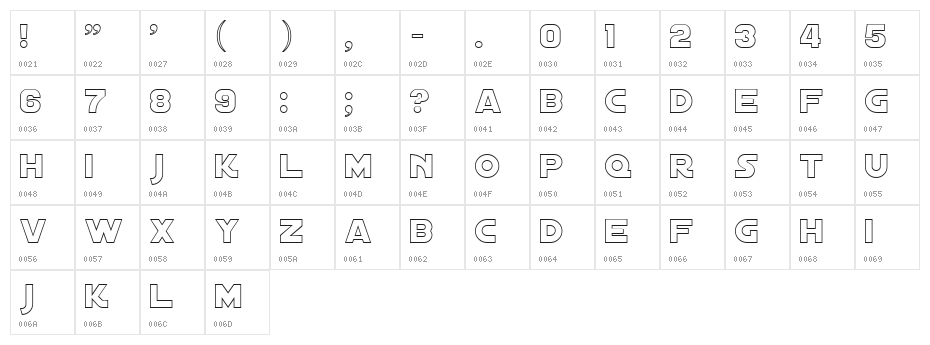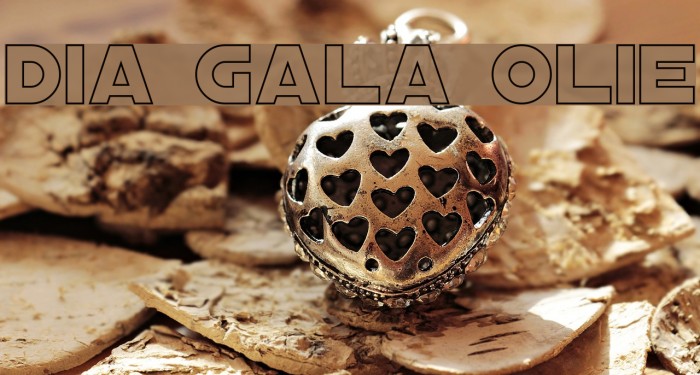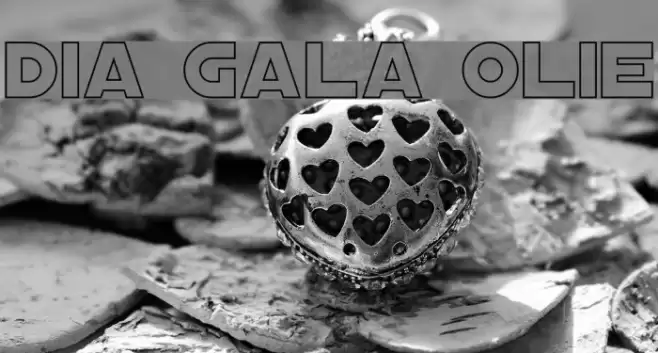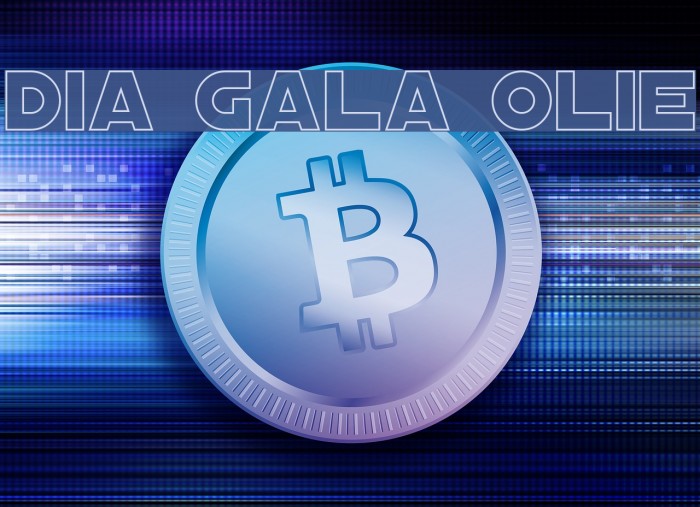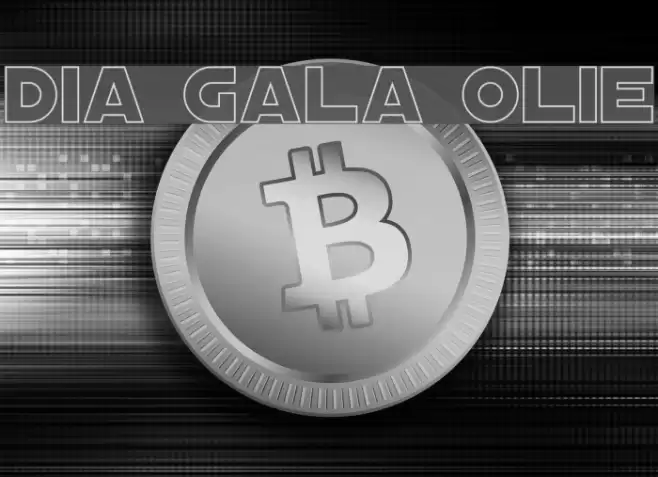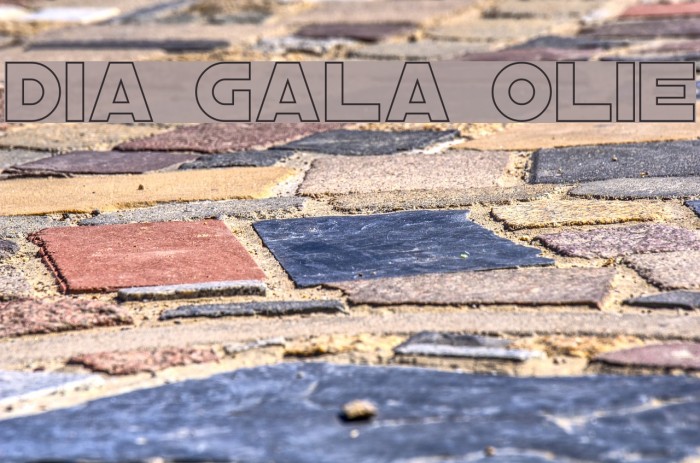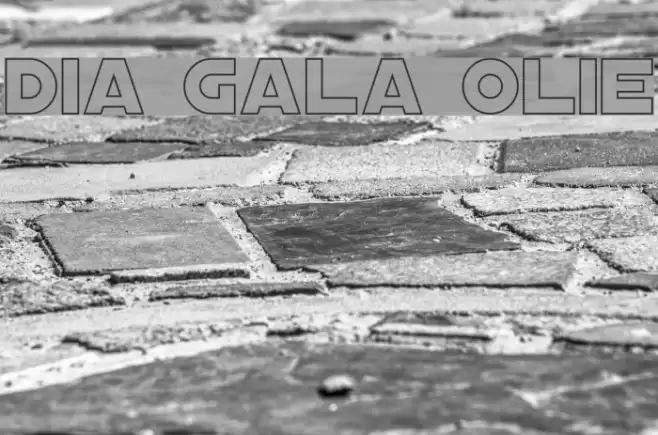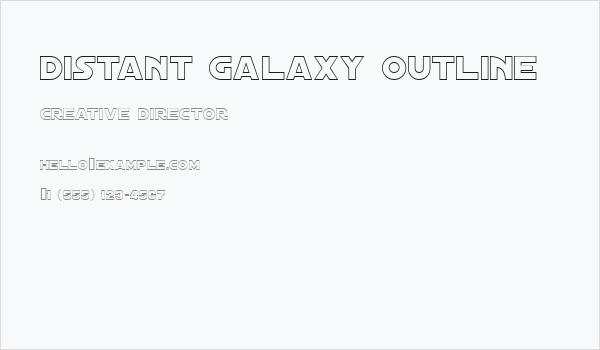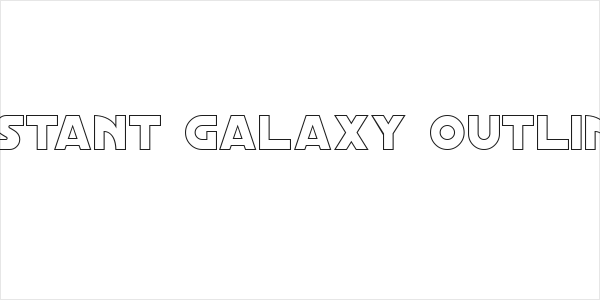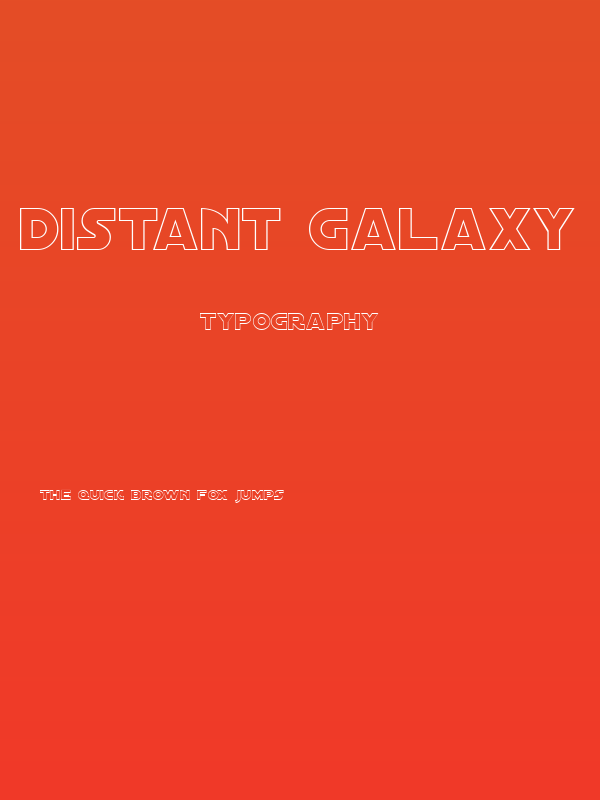
Distant Galaxy Outline Font
Distant Galaxy Outline Description
This font features a bold, futuristic outline style with geometric shapes and clean lines. The uppercase letters are uniform in height, creating a cohesive and structured appearance. The characters are designed with a consistent stroke width, giving them a balanced and harmonious look. The numbers and special characters maintain the same outline style, ensuring visual consistency across all elements. This font is ideal for projects that require a modern and tech-inspired aesthetic.
| Proposed Projects | Ideal for sci-fi themed designs, tech branding, video game titles, and futuristic posters. |